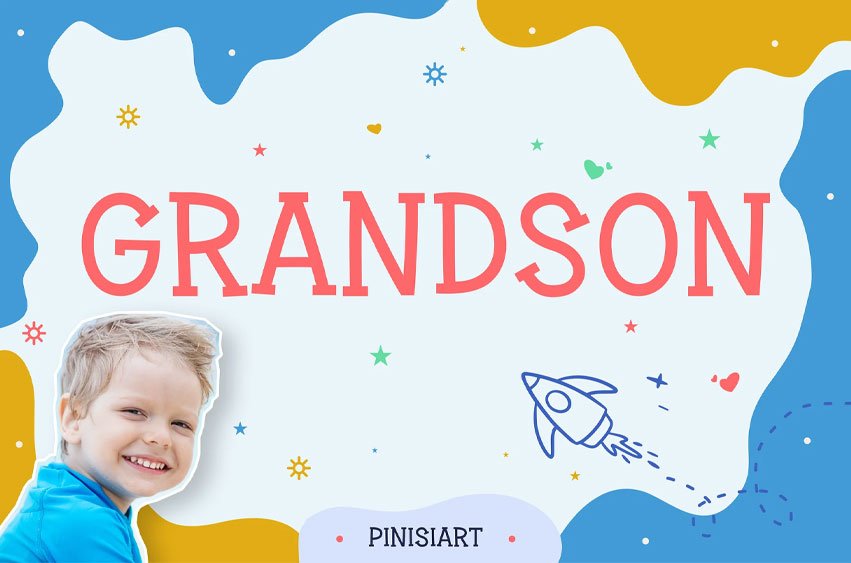
Grandson Font
Grandson Font is a playful and expressive typeface designed with rounded curves, a bouncy baseline, and cheerful proportions. Its lighthearted rhythm brings a sense of joy and friendliness, making it perfect for kid-centered projects. With a fun handwritten vibe and soft letter shapes, it radiates warmth while remaining highly legible across both print and digital spaces.
Bring imagination to life with Grandson. This childlike yet professional type style is ideal for a summer camp flyer, children’s books, educational materials, classroom posters, and joyful branding projects. Its lively curves and vibrant personality help capture attention while creating a friendly connection with readers. Designers seeking a kid-friendly, colorful, and energetic type solution will find Grandson the perfect choice for storytelling, learning, and beyond.
Key Features :
• Playful Letterforms – Rounded curves with a bouncy flow create joyful text compositions
• Kid-Friendly Energy – Perfect for school, education, and child-focused branding
• Highly Versatile – Works across posters, packaging, social media, and editorial layouts
• Optimized for Clarity – Easy readability while maintaining a fun, expressive character